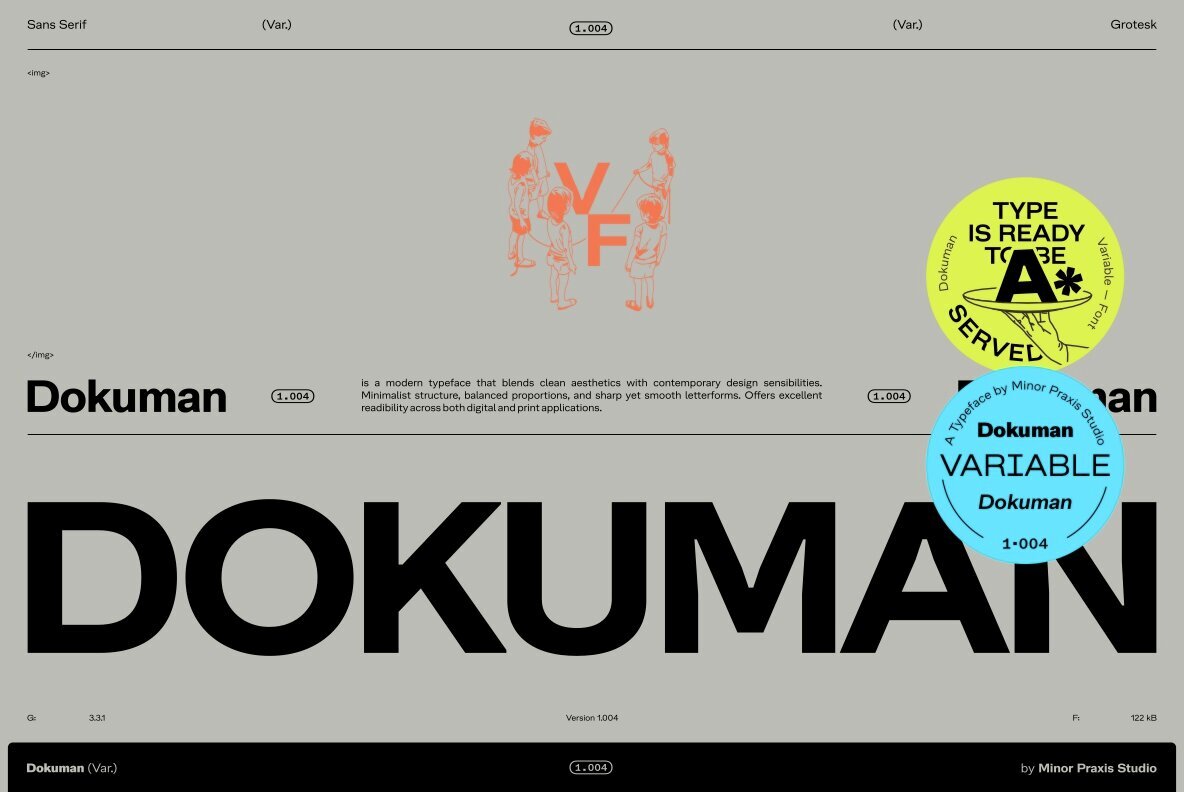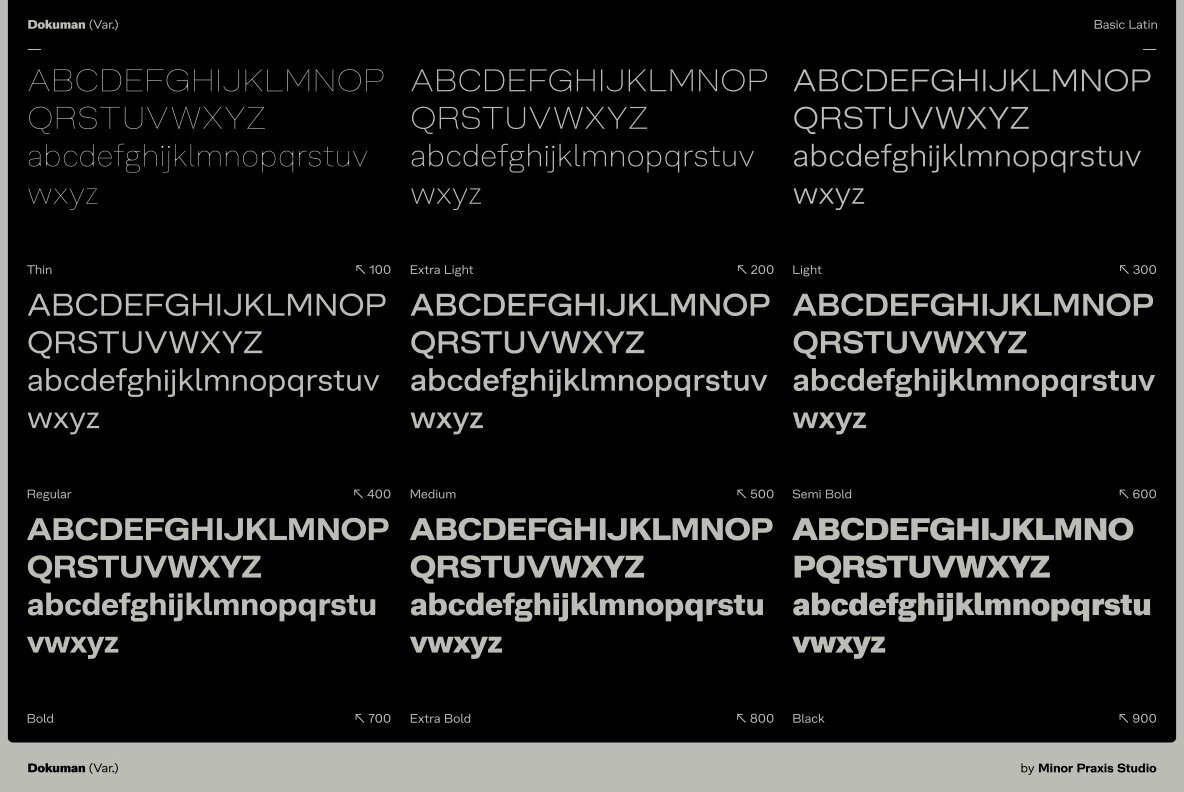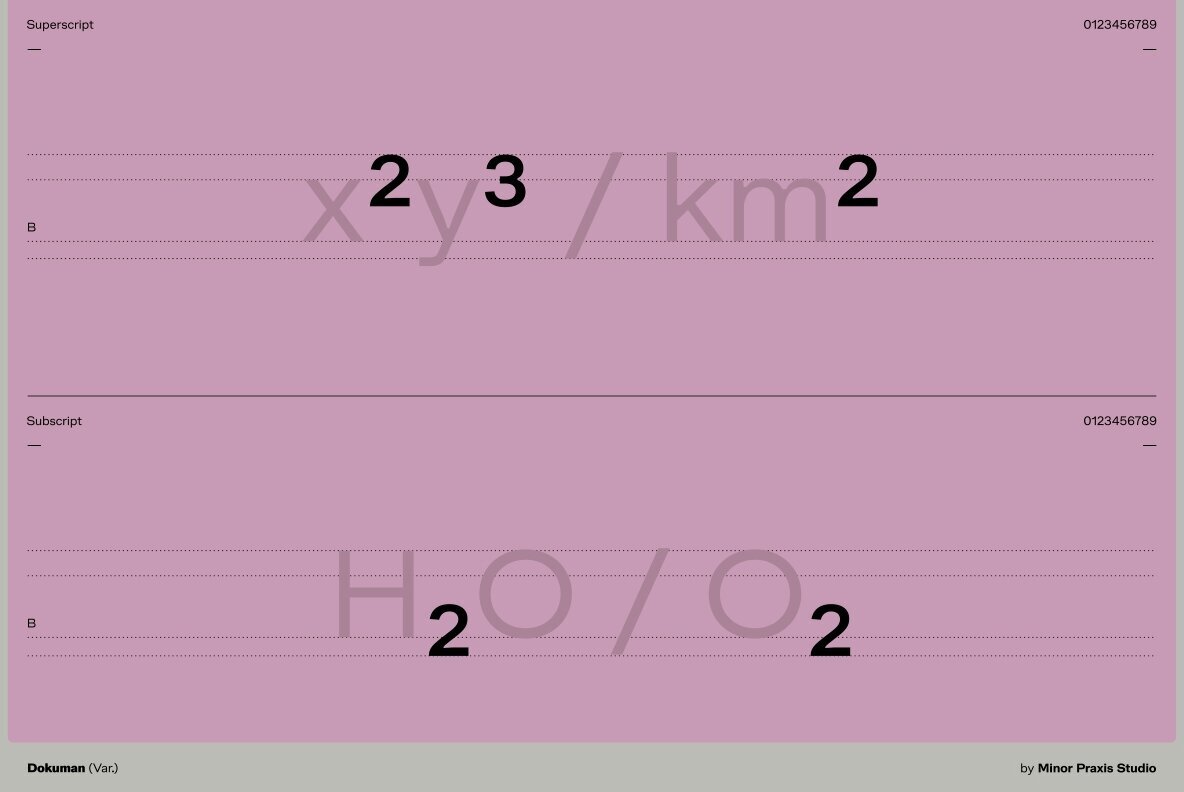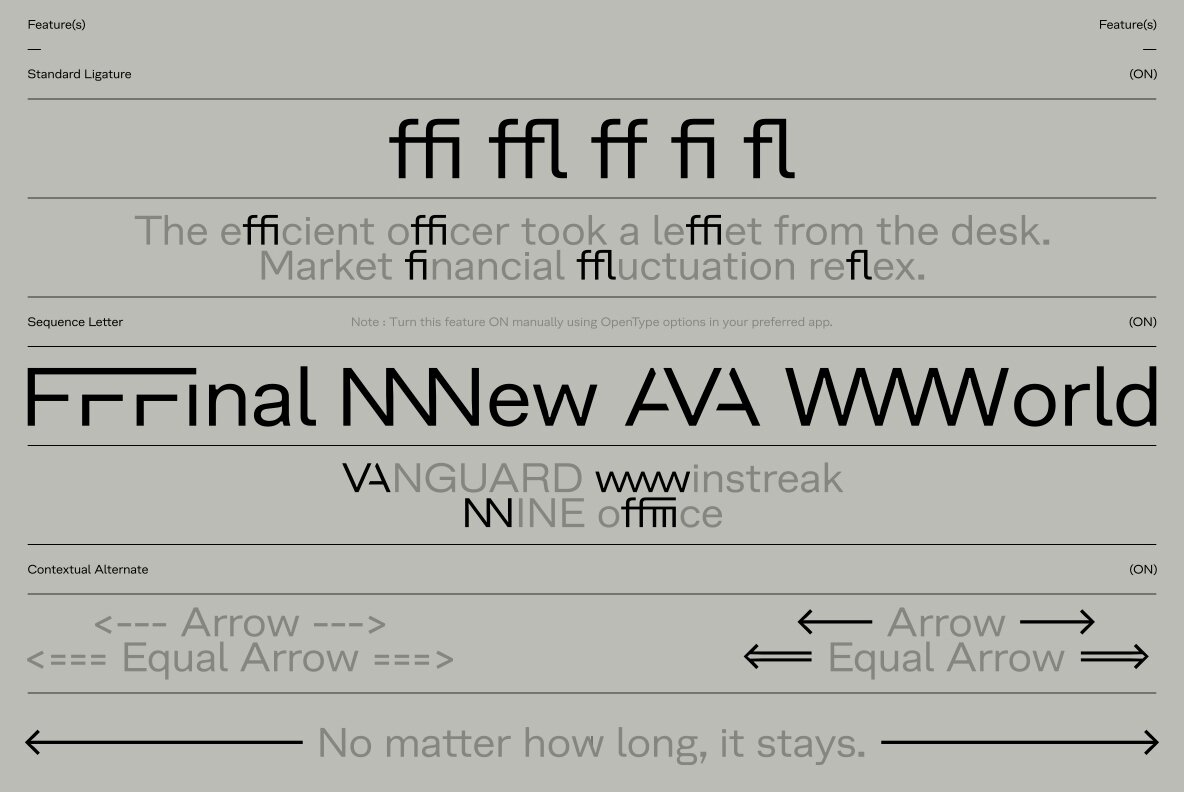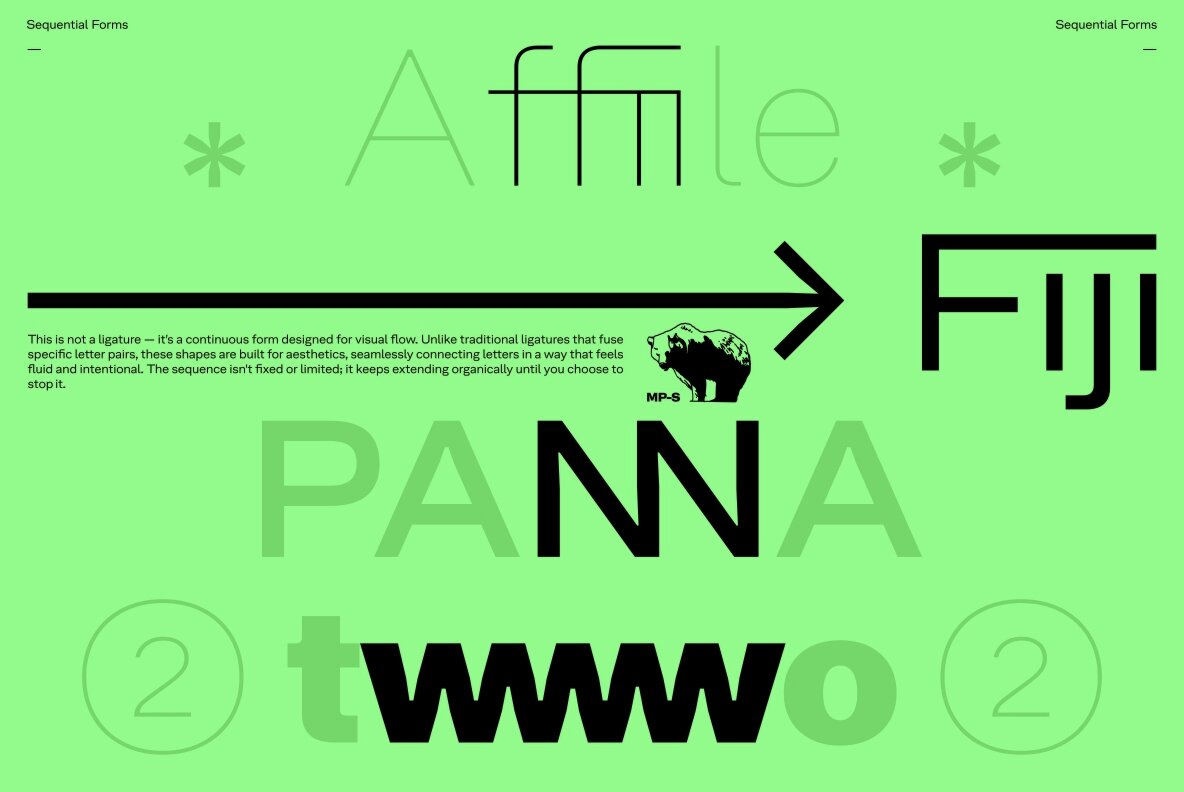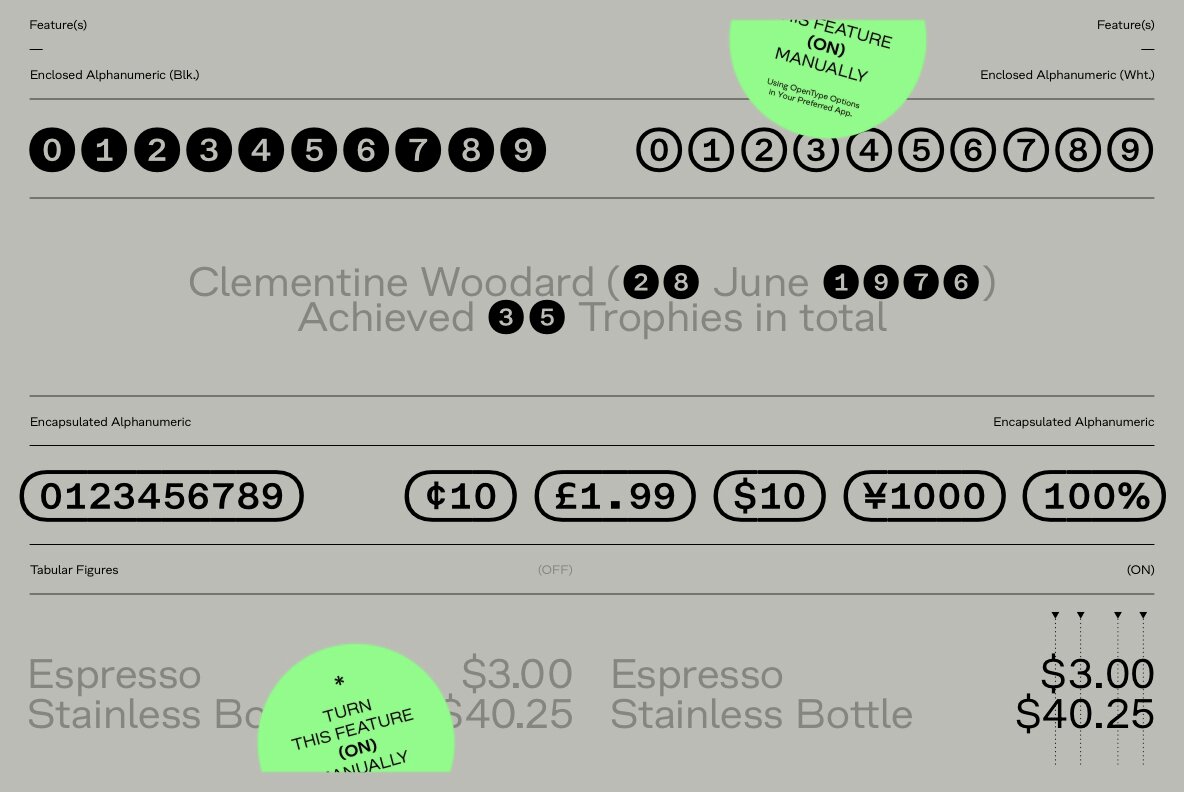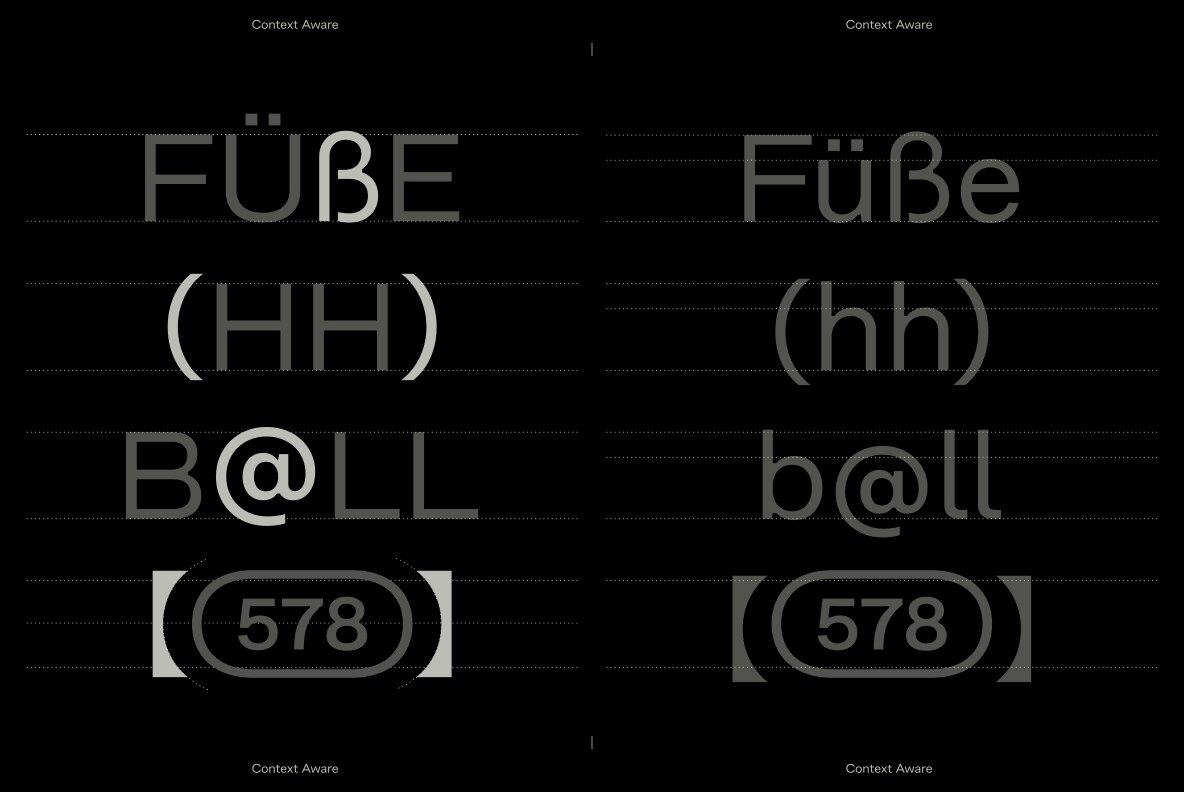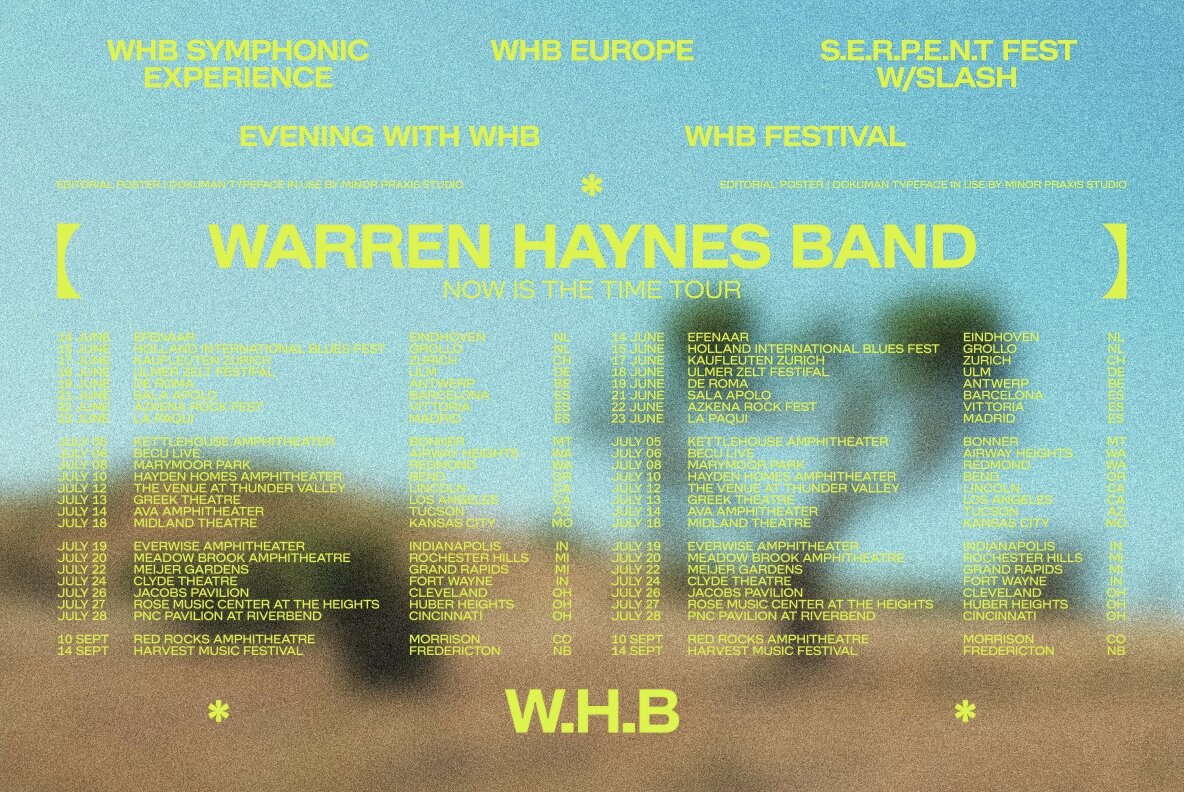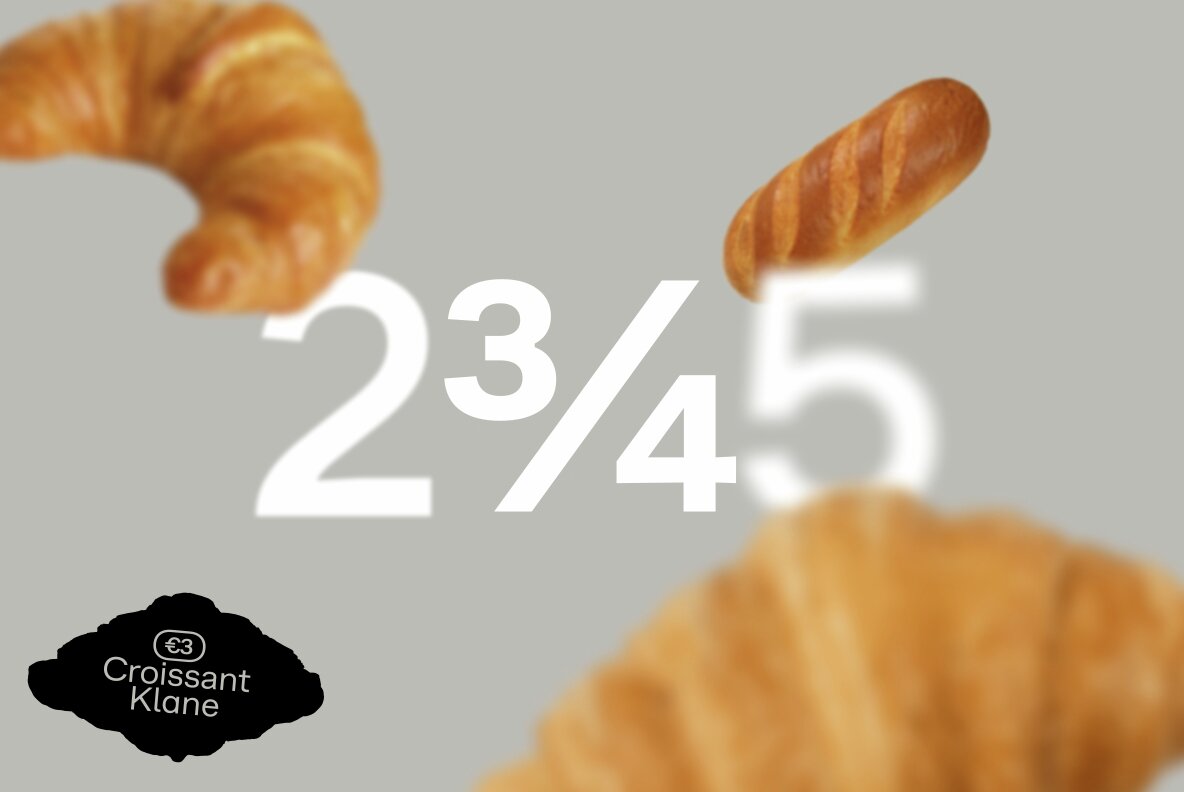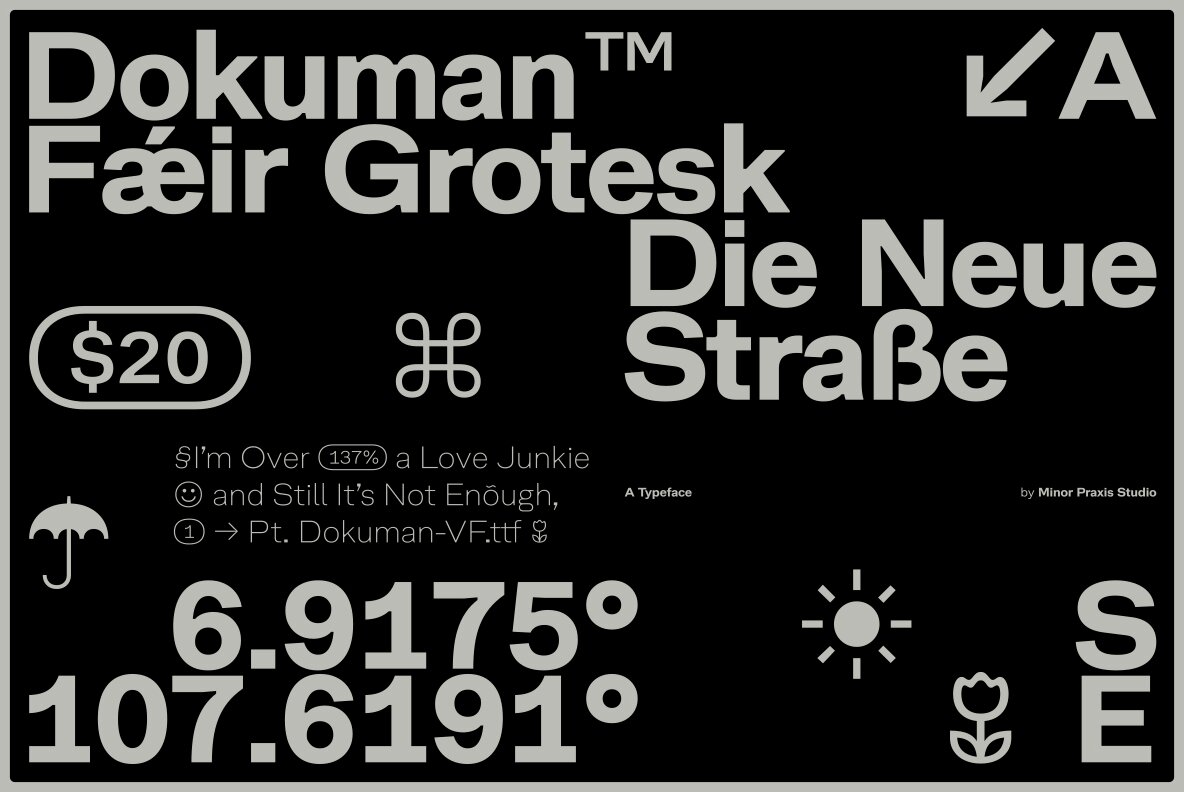
Dokuman Font
Dokuman embodies the essence of modernity with its sleek design and contemporary flair. Balancing minimalistic structure with well-crafted proportions, this typeface ensures clear and sharp readability across diverse mediums, whether digital or print.Dokuman Typeface: Modern Minimalism in Typography